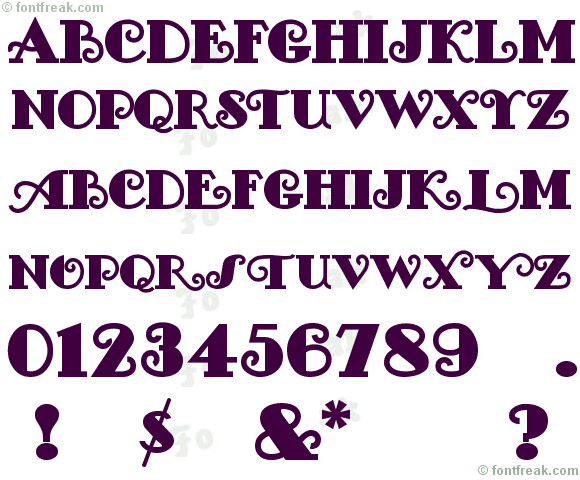
FancyPants
FancyPants — Character Map
About Fancy Pants
Fancy Pants by Nick Curtis is a delightful decorative font that exudes a playful elegance, making it a perfect choice for projects that require a touch of whimsy. Released in 1999 and available as freeware, this font showcases a unique blend of curves and sharp angles that create a visually captivating appearance. The strokes display a moderate weight with subtle contrast, allowing for easy readability while still maintaining a fun character. The spacing is generous, enhancing its legibility and giving it an airy feel, which is essential for various design applications.
The Fancy Pants font is particularly well-suited for a variety of creative uses. It shines in wedding invitations, where its charming design can add a festive flair to the special occasion. Additionally, it works wonderfully on movie posters, providing a bold yet stylish option for titles and taglines that aim to catch the eye. Restaurant menus benefit from its unique character, setting the tone for an inviting dining experience. Furthermore, the font is ideal for branding projects, especially for businesses that want to convey a light-hearted and approachable image.
Targeting graphic designers, small business owners, and content creators, the Fancy Pants font offers a versatile option for anyone looking to stand out in their visual communications. Its ability to blend sophistication with a playful touch makes it an excellent choice for a wide range of design contexts.
What sets the Fancy Pants font apart is its distinctive personality; it captures the essence of fun while remaining versatile enough for professional use. With its unique style and free availability, the Fancy Pants font free download is an asset for any designer looking to add a charming and memorable touch to their projects.